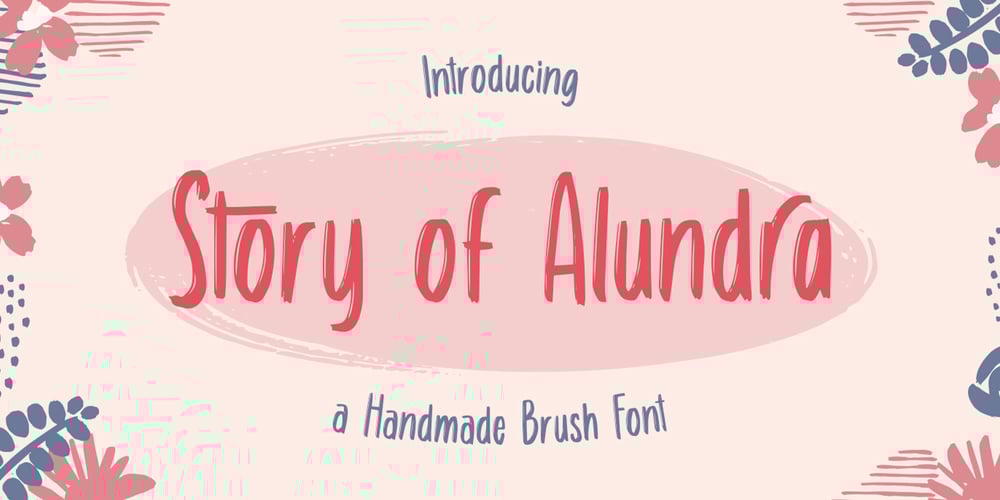
Story of Alundra Font Family was designed by Hilmius Akbar and published by Typefactory. Story of Alundra contains 1 styles and family package options. Story of Alundra is a handmade brush display font. It has cute yet cheerful feel. No matter the topic, this font will be an incredibly asset to your fonts’ library, as it has the potential to elevate any creation.